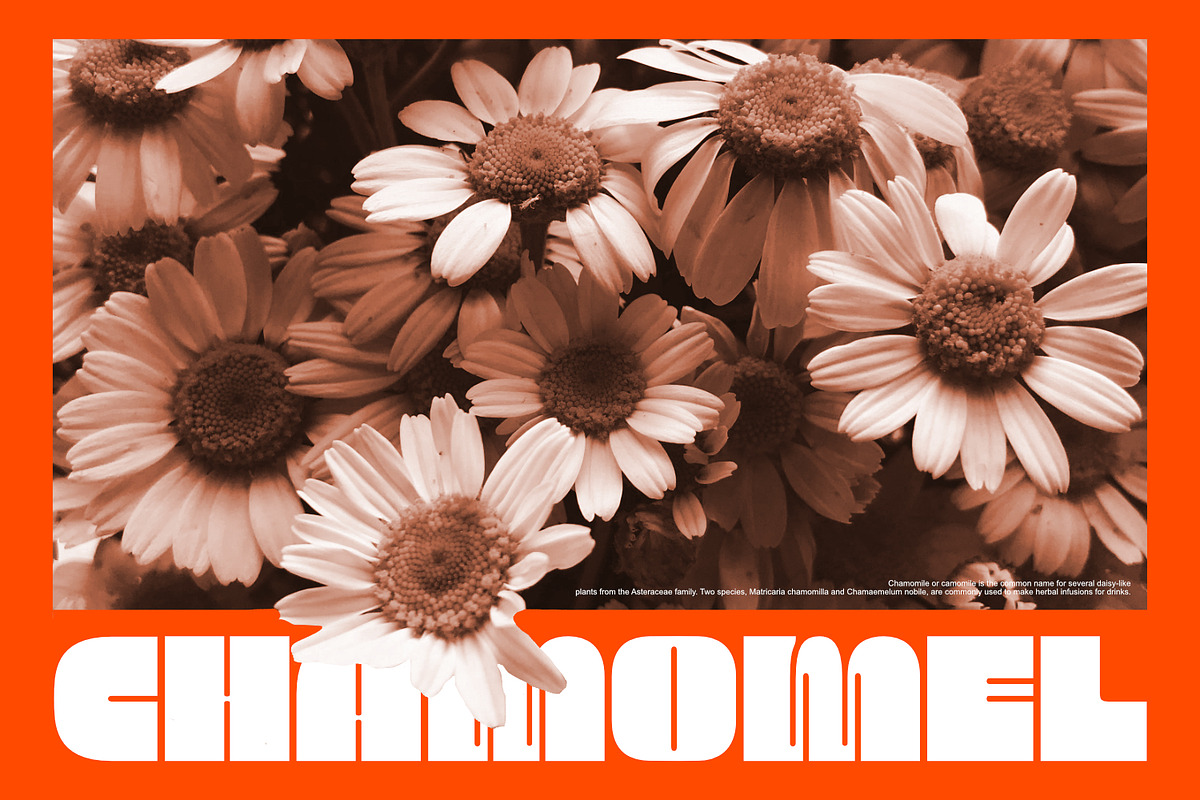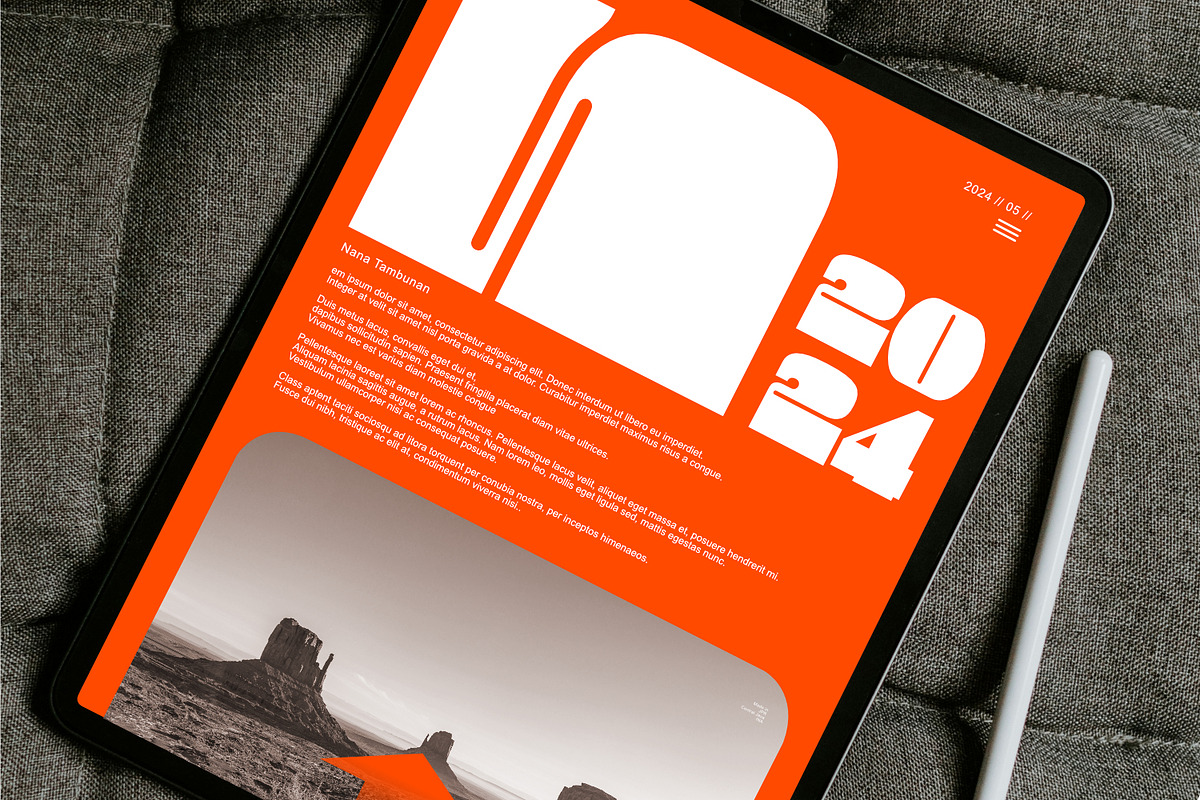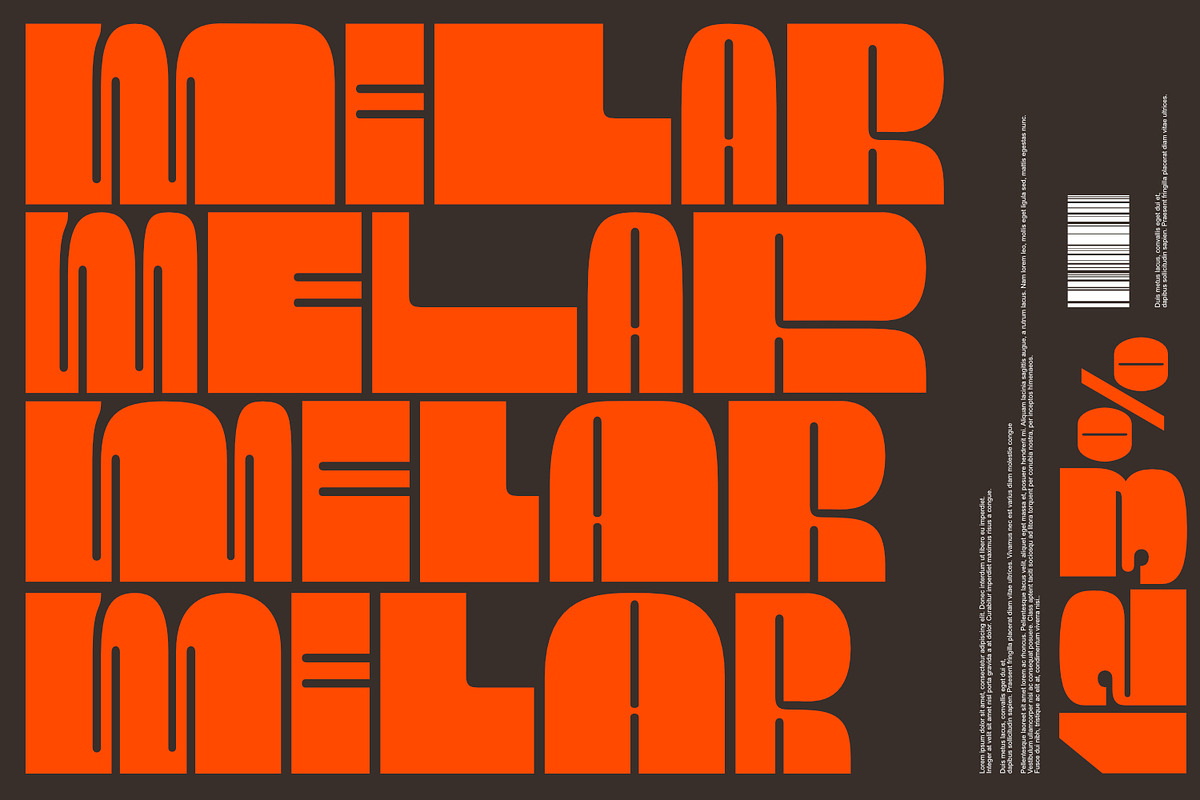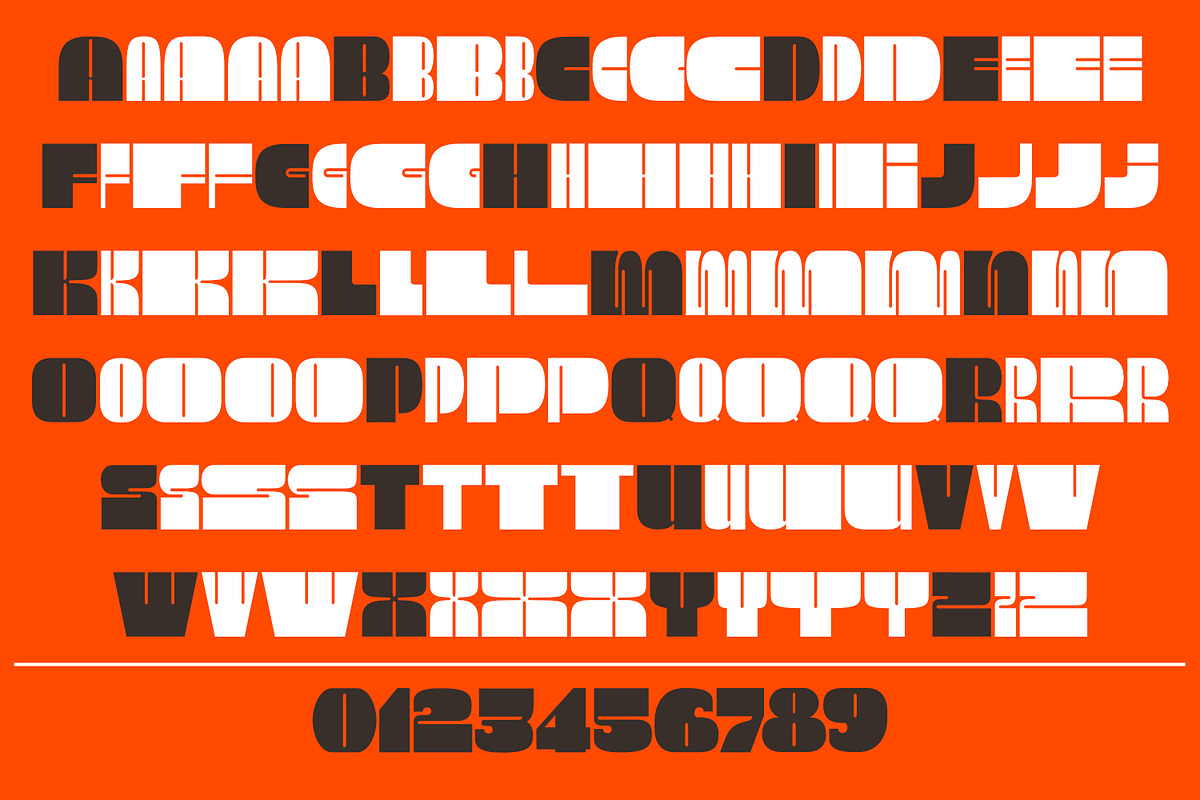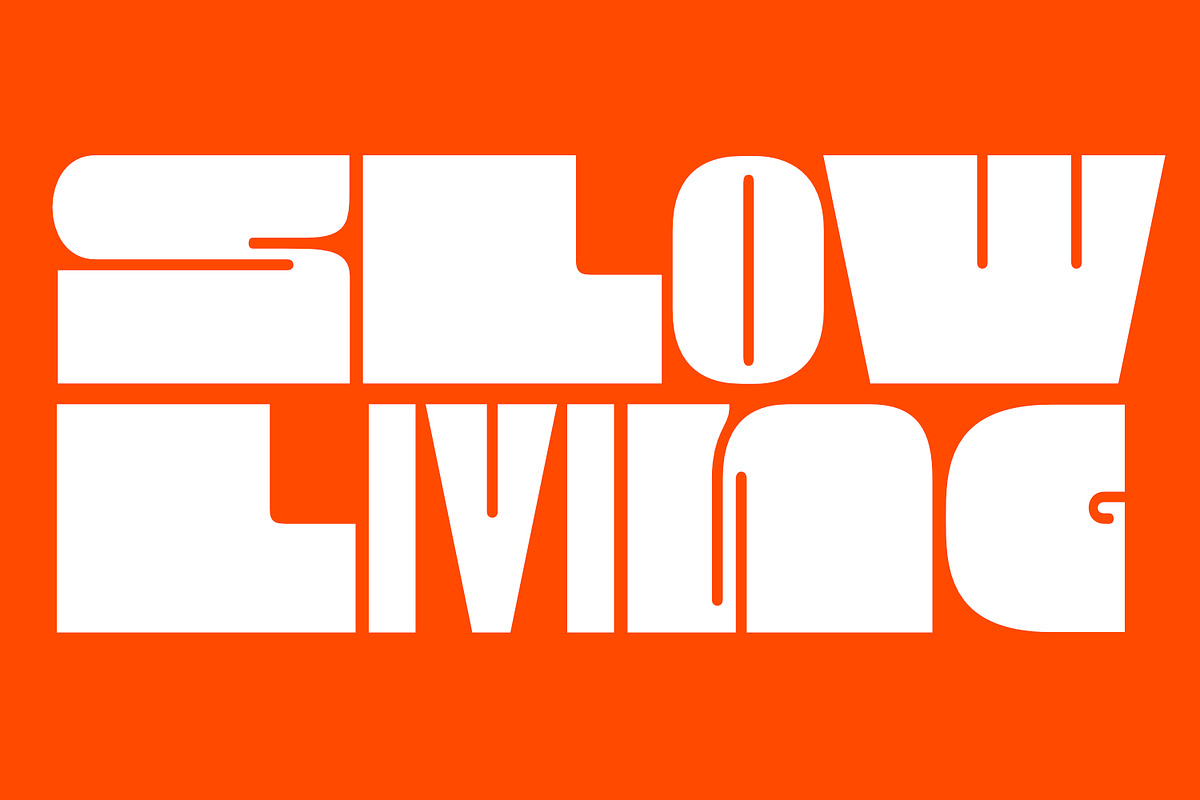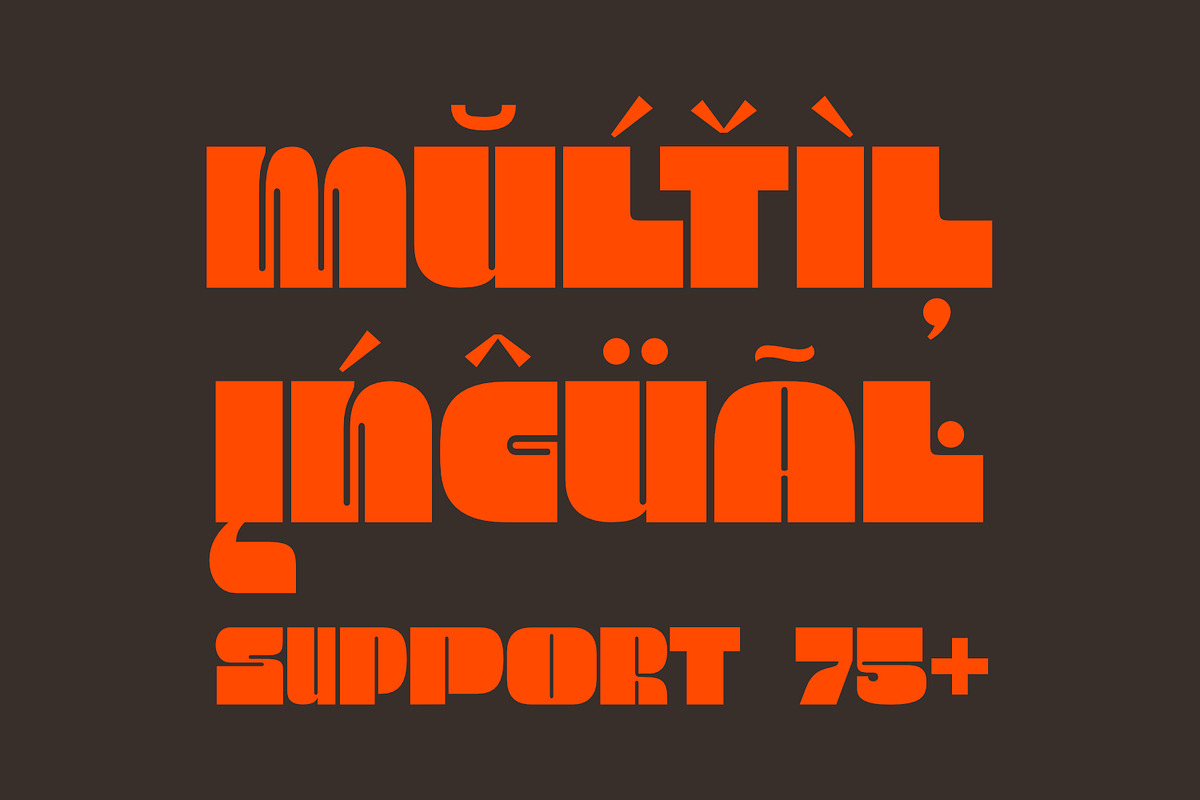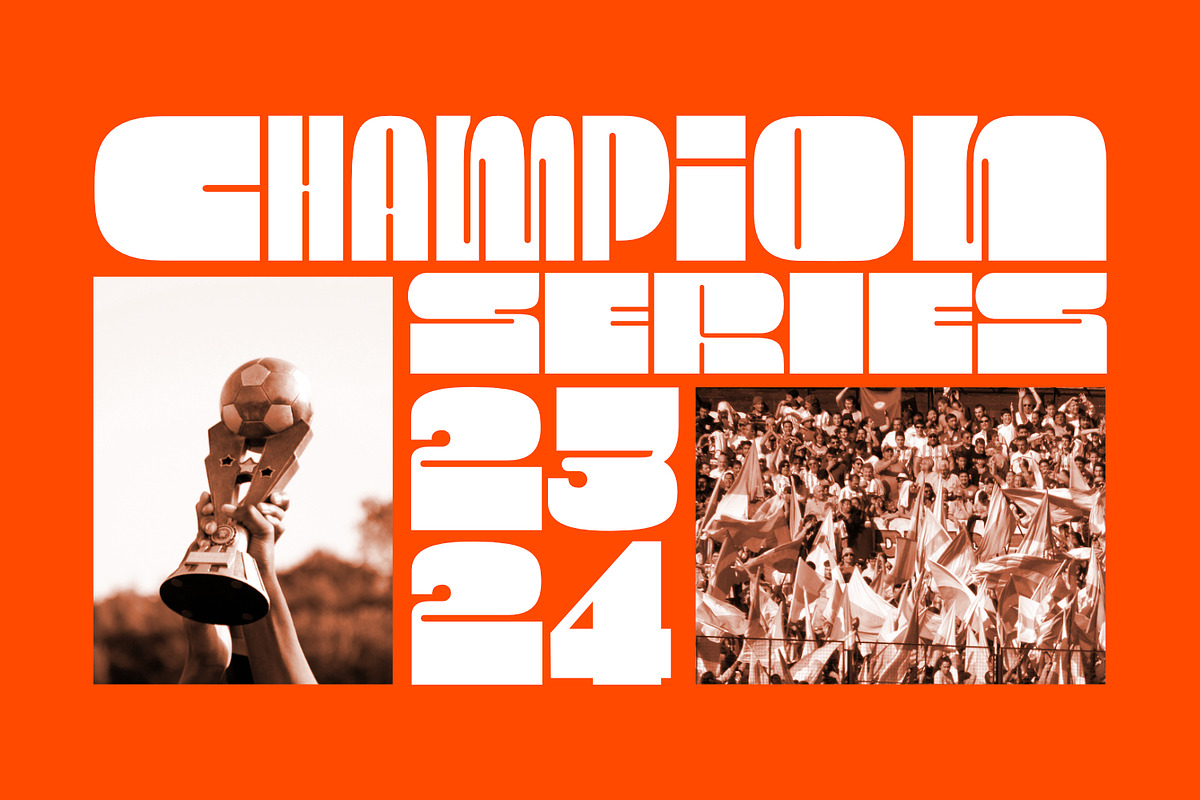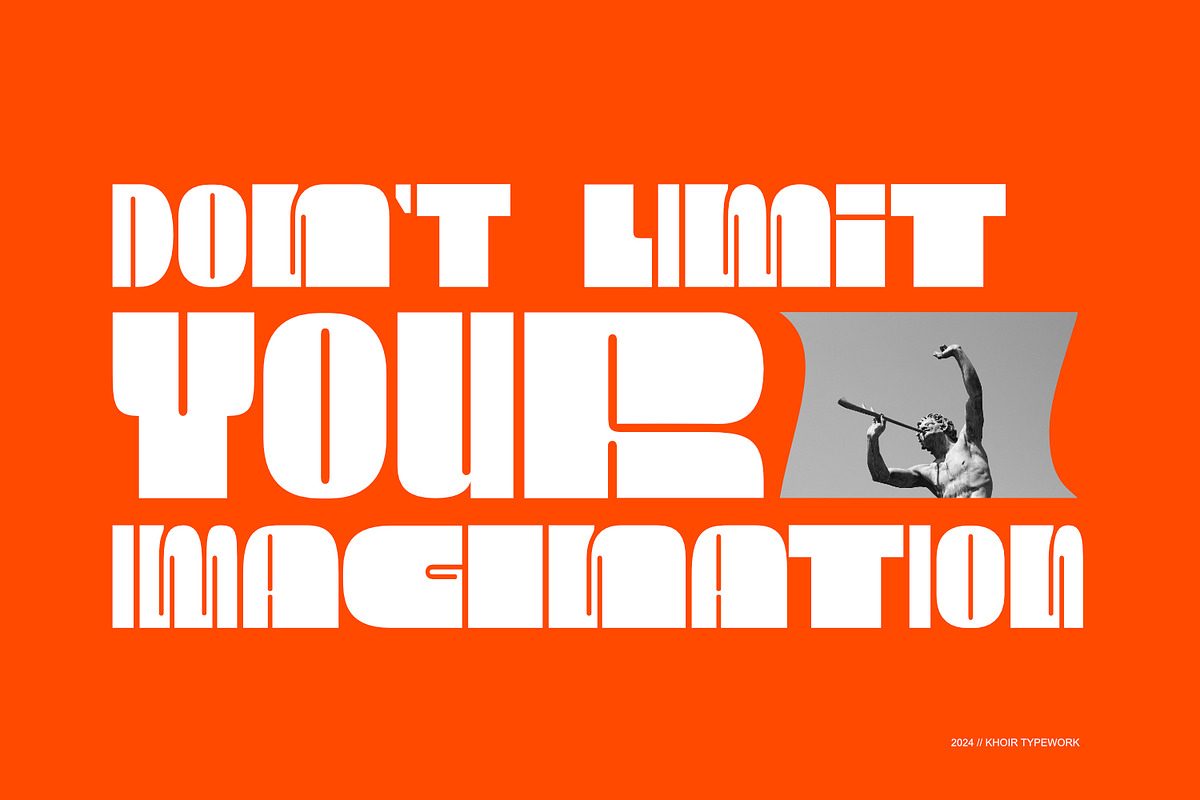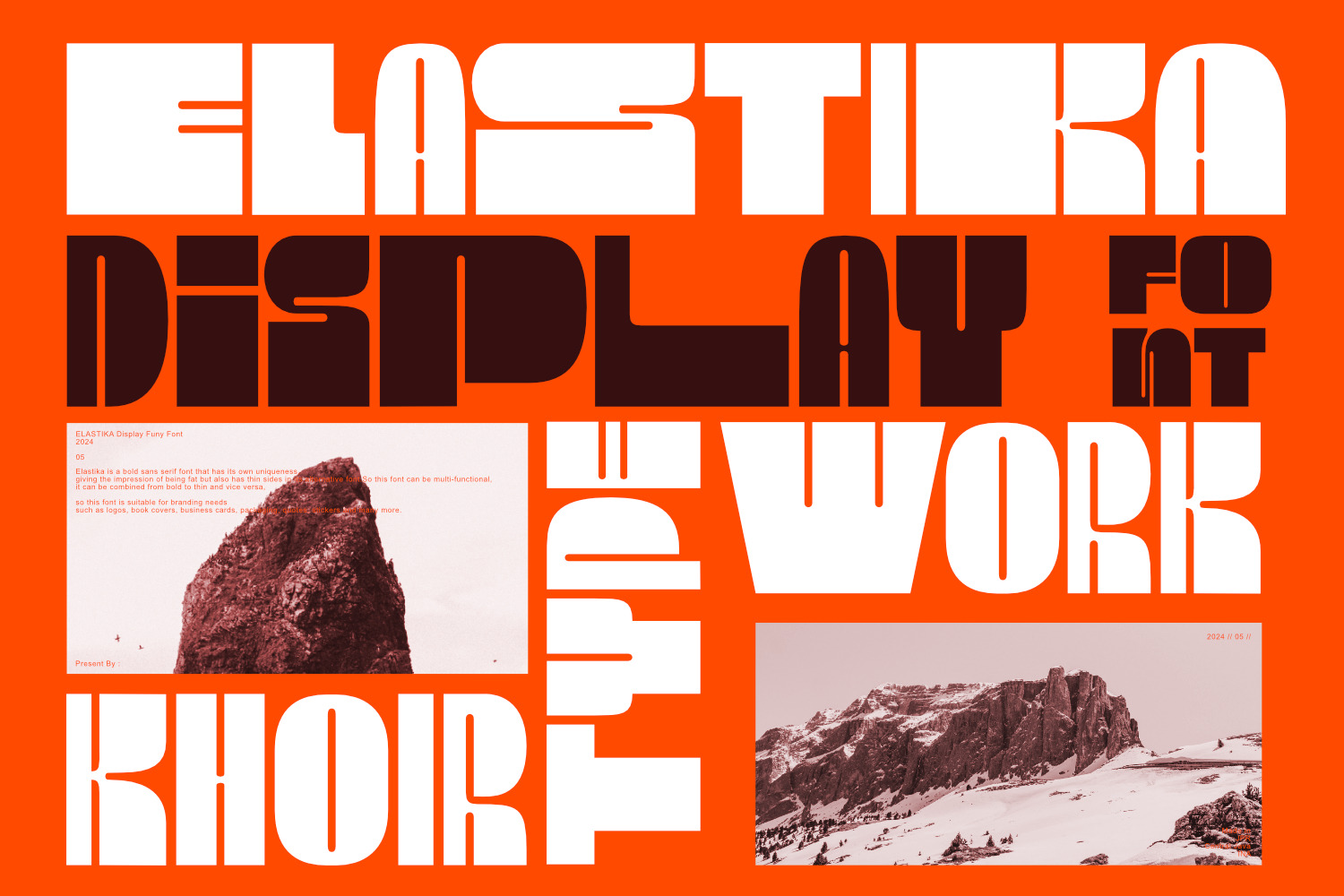
Elastika - Display Font
Bold sans serif has its own uniqueness, giving a fat impression but also has the advantage of being thinner in its alternative fonts. So this font can be multifunctional, it can be combined from thick to thin and vice versa, which is why this font is suitable for branding needs such as logos, book covers, business cards, packaging, quotes, stickers and many more.